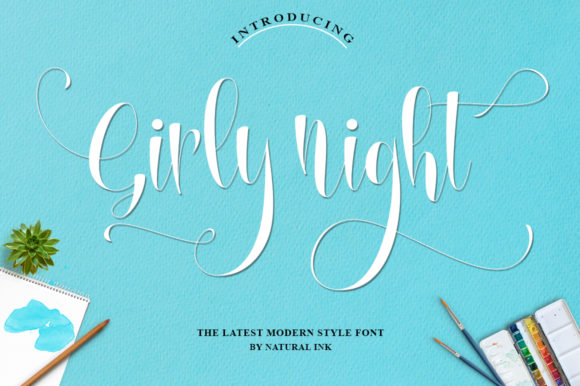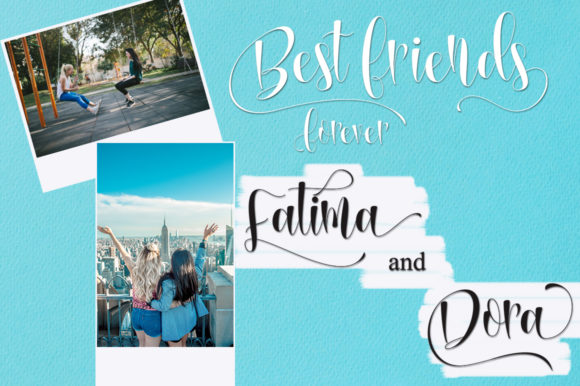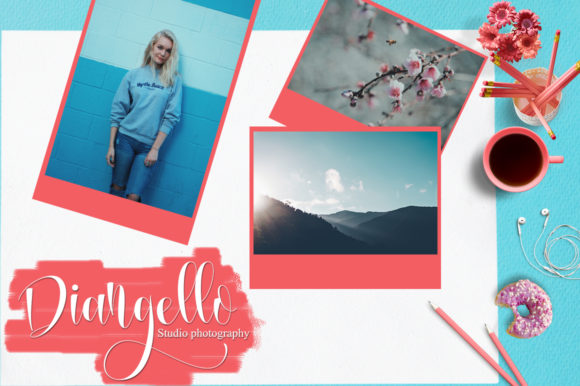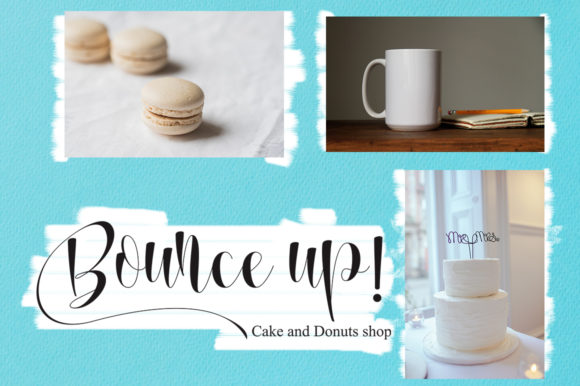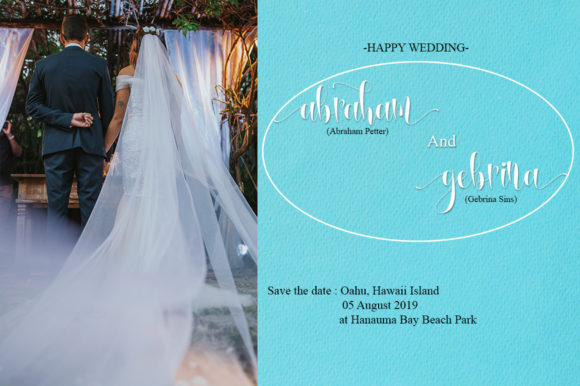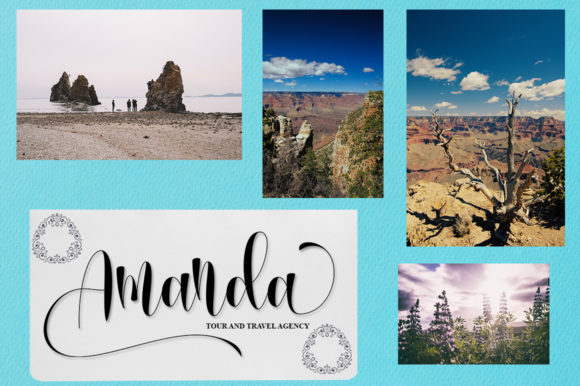
Girly Night Font
About Girly Night Font
Girly Night is a lovely, light and beautiful handwritten font with lots of authenticity! It will put a unique spin on any design project.